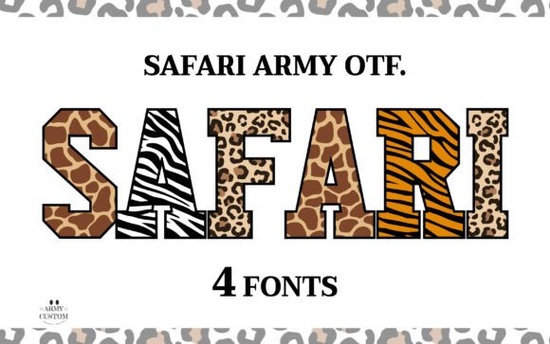
If you're creating playful, eye-catching designs with a jungle or safari twist, the Giraffearmy Font offers a fun and flexible way to bring bold animal energy to your projects. Designed specifically for kid-friendly themes, this decorative font family combines chunky all-caps letterforms with vivid textures that mimic real animal patterns perfect for posters, classroom decor, party merchandise, or print-on-demand products.
What makes Giraffearmy stand out is its sticker-like appearance: each letter features a crisp white inline and a solid black outer stroke, keeping details sharp even at large sizes. Instead of just one style, you get four distinct color fonts in one bundle Zebra, Leopard, Giraffe, and Tiger each packed with authentic textures that feel handcrafted but remain fully scalable as vector-based OTF files.
How can I use these animal-pattern fonts?
These fonts work best when you want instant visual impact without layering multiple graphics. Think birthday invitations with roaring tiger headlines, classroom name tags featuring giraffe spots, or summer camp T-shirts stamped with zebra-striped slogans. Because each font includes full-color textures built right into the glyphs, you don’t need to apply fills or overlays manually just type and go.
Which animal style fits my project?
Each pattern in the Safari Army Bundle brings its own mood:
- Zebra: High-contrast black-and-white stripes with organic, uneven flow ideal for bold, graphic statements.
- Leopard: Warm sand-colored base with irregular rosettes, offering a softer, earthy vibe.
- Giraffe: Large honey-brown patches divided by dark seams, great for friendly, approachable designs.
- Tiger: Vivid orange background swept with dynamic black bands, perfect for energetic or adventurous themes.
You can mix and match styles within a single phrase try “SAFARI” in Zebra Font, “CAMP” in Leopard Font, and “FUN” in Tiger Font to create custom word art that feels lively and unique. The Giraffe Font adds warmth and charm, especially for younger audiences.
Who is this font bundle really for?
This collection shines for small business owners designing themed merchandise, teachers creating engaging classroom materials, or crafters making personalized party favors. Print-on-demand sellers will appreciate how well the textures hold up on mugs, tote bags, and wall art even when scaled. Since the fonts are all-caps and highly legible, they’re also great for signage or event banners where readability matters from a distance.